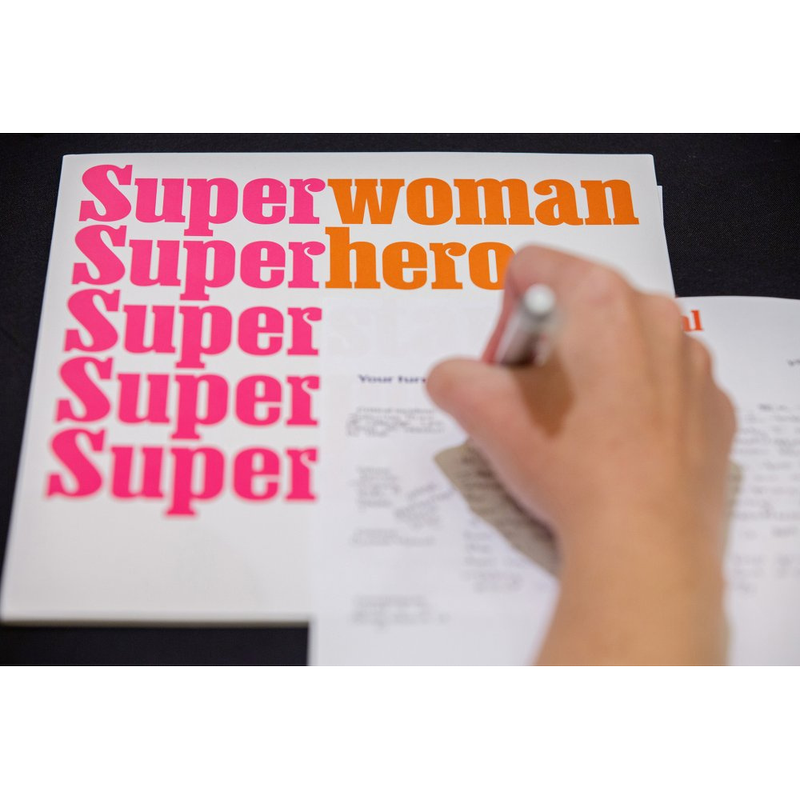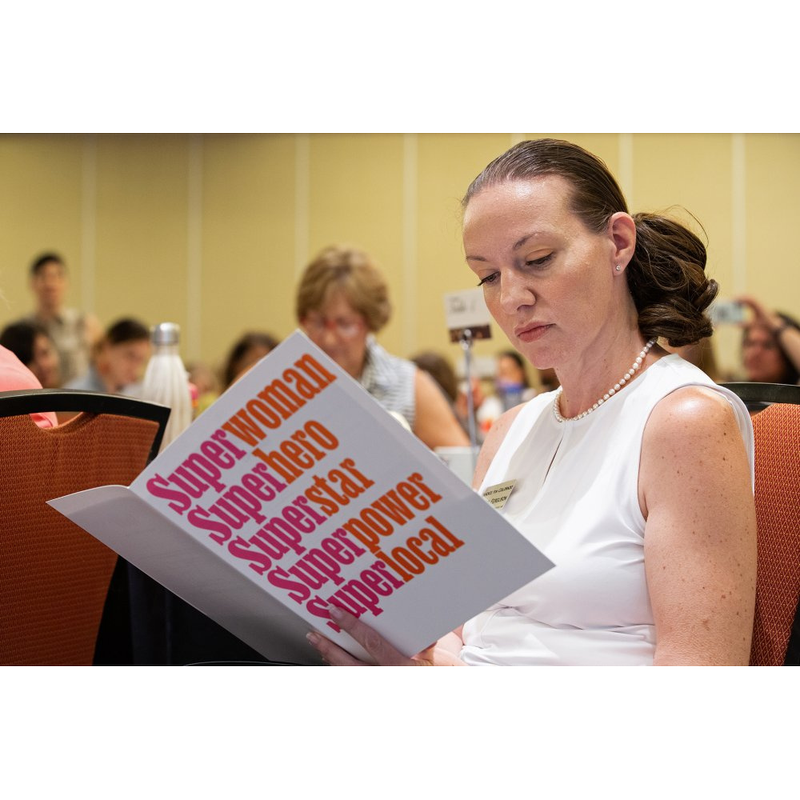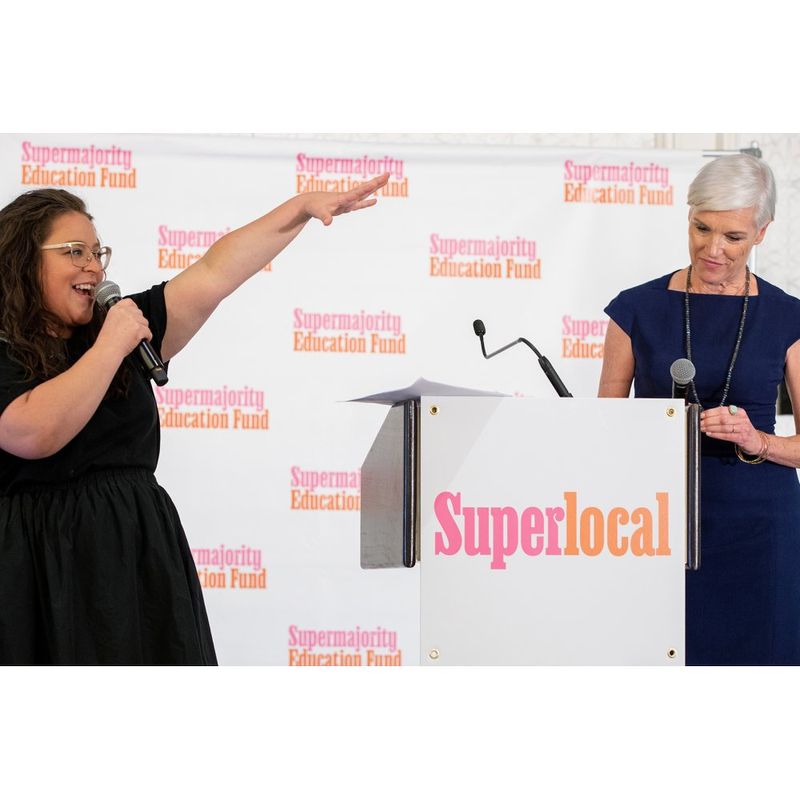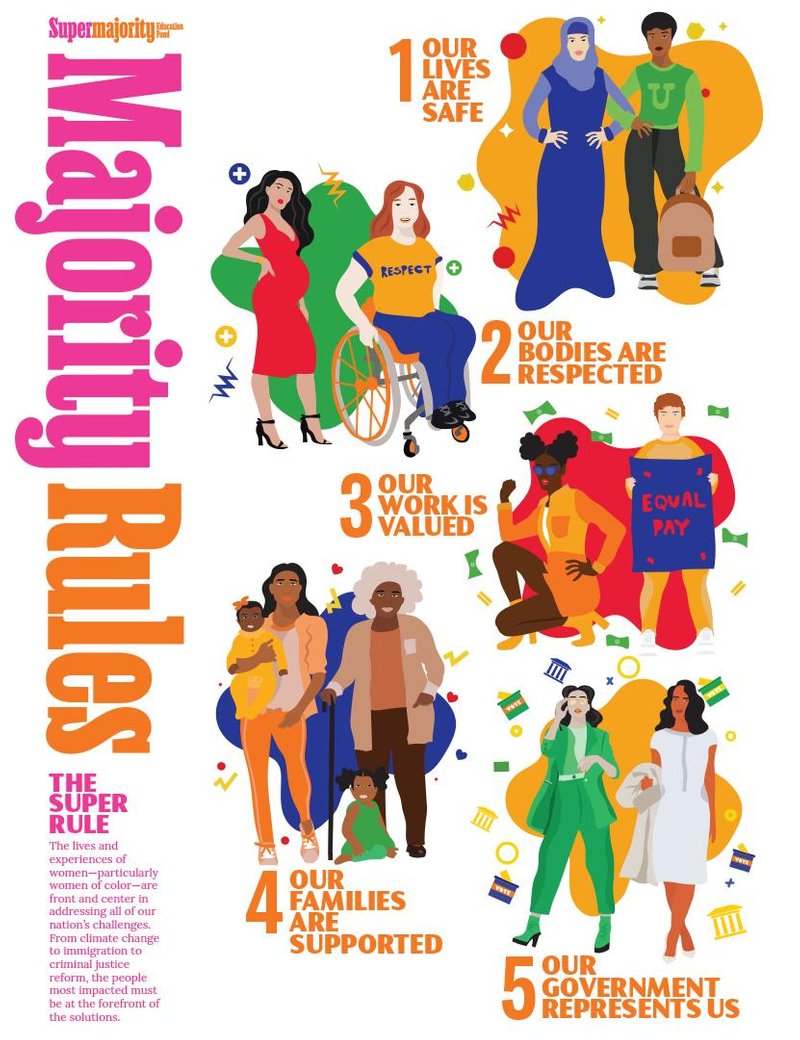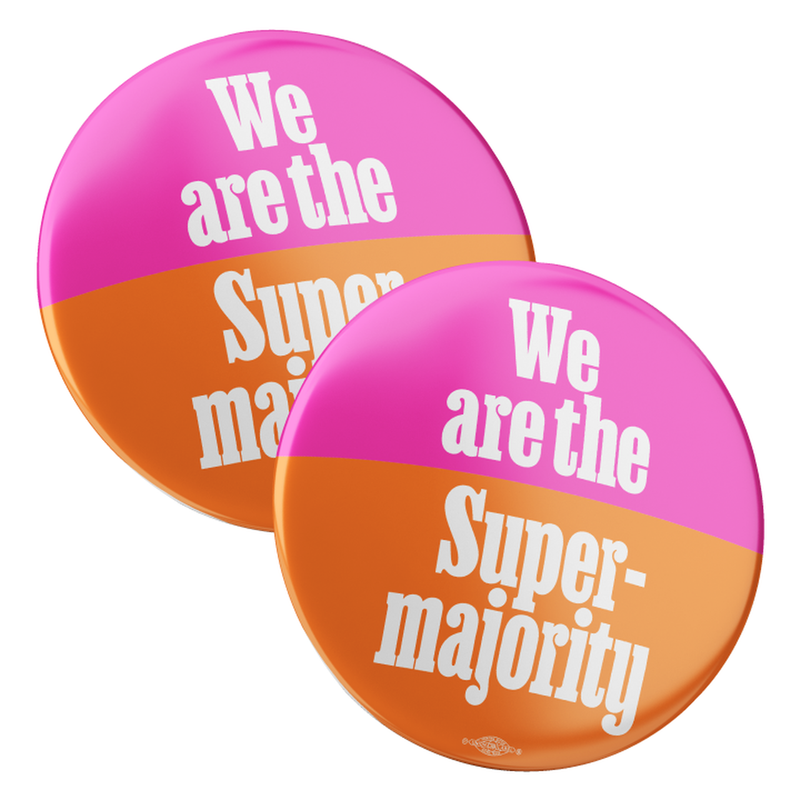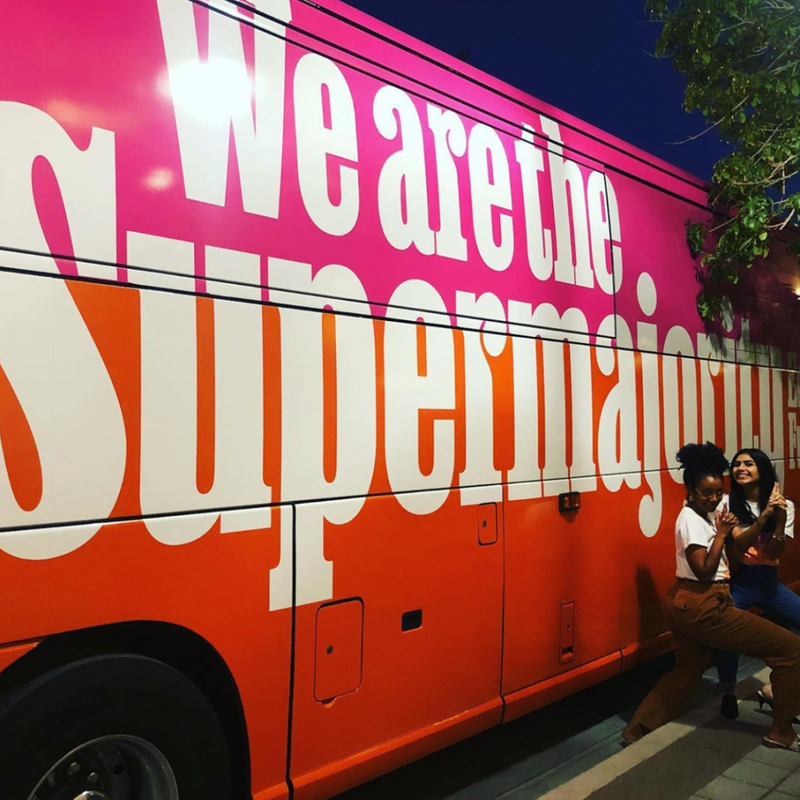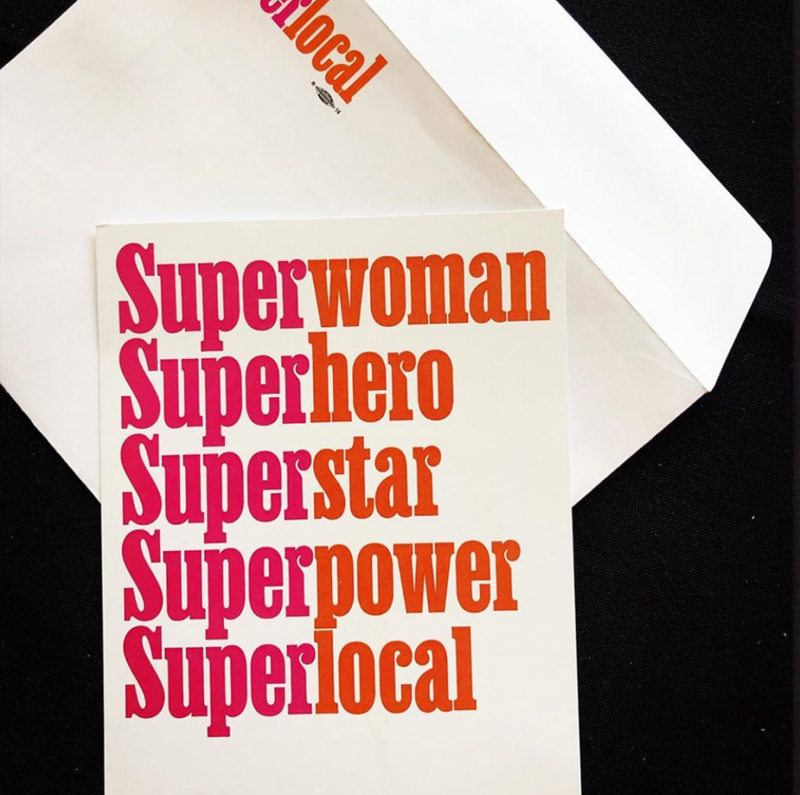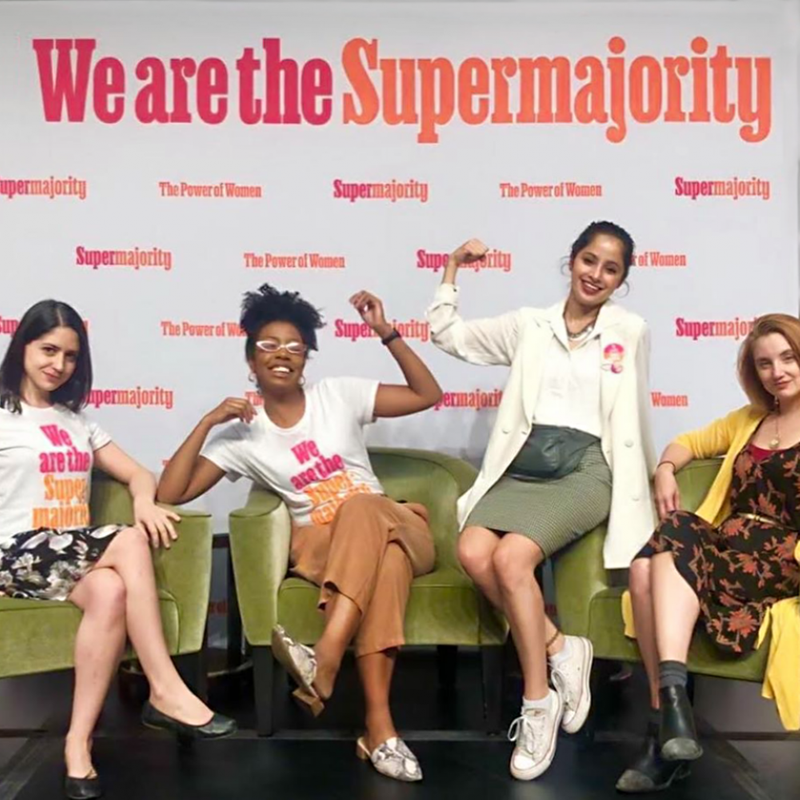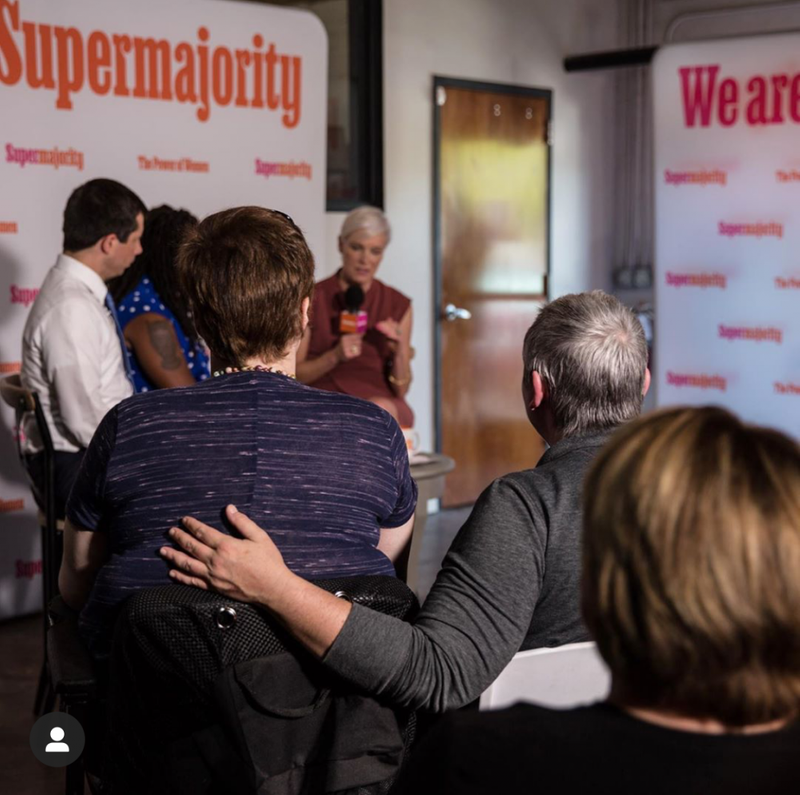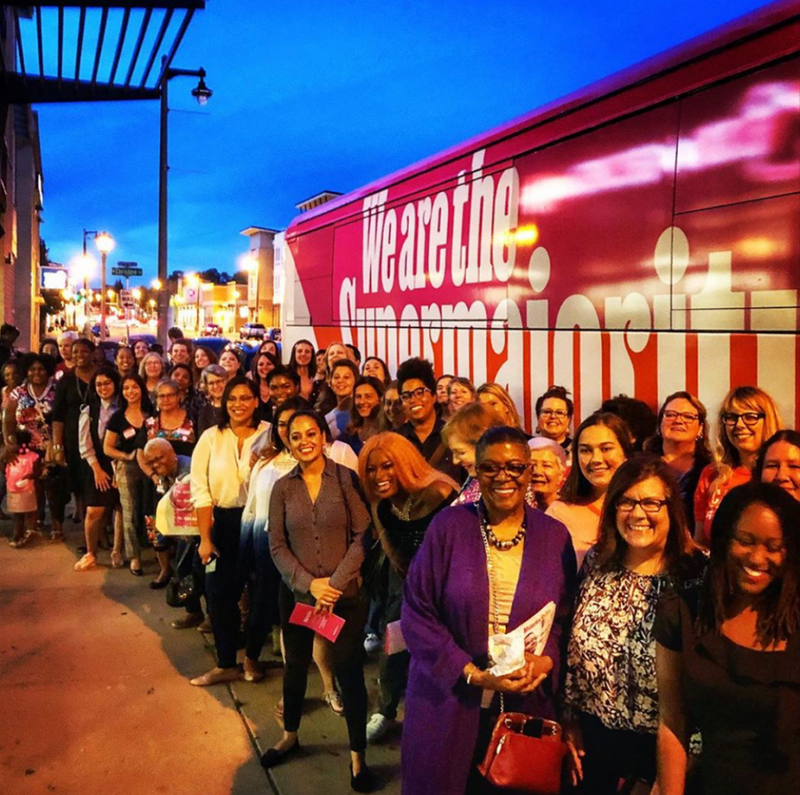
Custom typeface and lettering for Supermajority
A bus with the words "We are the Supermajority" is on a street in front of the United States Capitol building
Supermajority bus wrap near the US Capitol. Image: Lara Aburamadan
“That’s great! Can you change it?”
One of our favorite clients, Champions Design, contacted us after seeing Ben Kiel’s custom typeface for New York debut in the magazine’s 50th anniversary issue. The typeface we now know as Ballast, an extra-condensed spin on the historical typeface Egyptienne, perfectly fit Supermajority, a new political organization promoting women’s equality.
Fortunately, although the typeface was originally made for New York, it wasn’t exclusive to them. So we sent it along for testing, and the Supermajority identity began to come into focus. But Champions astutely identified a few small changes that would really make it sing.
The customized Supermajority typeface (blue) overlaid with Ballast (red)
Changes big and small
In the word “Supermajority,” two lowercase r’s, a j, and a y created distracting visual gaps, making the word feel inharmonious. Ben modified these letterforms to elegantly eliminate some of that space by pushing the ball terminals into the stems and giving the y a u shape that balances the typographic color and visual presence of the logotype.
Ben incorporated additional small changes based on the specific letter combinations, such as making the S serif align with the lowercase u to reinforce the density of the word.
The customized Supermajority typeface
The challenge and the opportunity was the name. It is powerful. What sends a more cannot-be-ignored message than ‘there are more of us than there are of you’? But it has a lot of letters; every vowel, plus y. We found a revival of Schelter & Giesecke’s Egyptienne in an email of unreleased beta fonts from XYZ Type. The tight clearances and curled counterforms gave us the function as well as the tone that we needed, then it was off to the races customizing the wordmark and sorting out critical letter pairings.
Champions Design case study
Supermajority visual guidelines, created by Champions Design
The Supermajority identity in use. Image: Supermajority
The customized Supermajority typeface
A customized typeface
From the beginning, we knew that Supermajority needed a full working font, not just a logotype. Customizing an existing typeface—Ballast—was an inexpensive solution for a unique brand typeface in a quick turnaround.
Taking cues from the logotype refinements, Ben worked his way through the character set, making letterforms more compact, shortening descenders, and tightening the overall fit. Although Ballast is available to anyone, the special version—with the distinctive S and y Champions requested—will be used exclusively by Supermajority.
Champions Design’s bold and distinctive identity system hinged on custom-tailored type, setting Supermajority apart from other political organizations. The typeface took center stage on everything from a giant bus to small stickers handed out at events.
The Supermajority identity in use. Image: Supermajority
Evolving into a retail typeface
When customers show interest in fonts we haven’t finished yet, this often spurs us to further develop and complete our ideas (read more about this in our article “Fonts in progress”). Champions Design’s invaluable feedback provided a visual hook to Ballast, a typeface in search of a voice.
With newfound momentum, Ben continued evolving Ballast’s concept, exaggerating the ball terminals and carving out as much space as he possibly could to allow tight, dense typesetting. A partnership with Future Fonts to distribute the working version provided the perfect opportunity to get the font out into the world.